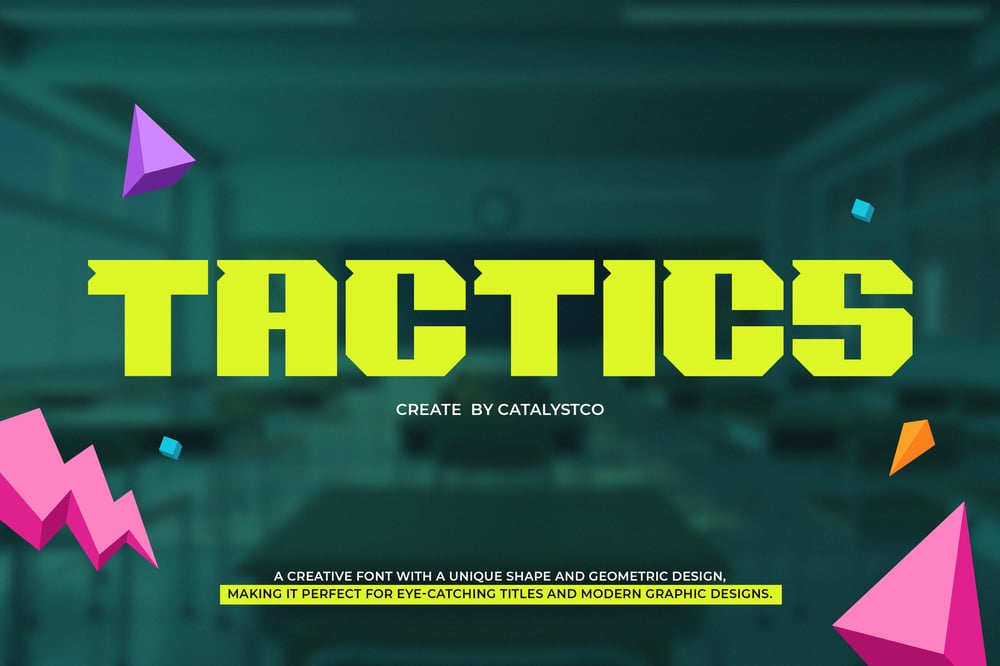
Tactics
Tactics font
Tactics Font Family was designed by published by Catalystco Std. Tactics contains 2 styles and family package options. Tactics is a bold, geometric display font with a futuristic and edgy design. Its sharp angles and blocky structure make it perfect for eye-catching titles, gaming logos, tech branding, and digital artwork. The unique letter shapes add a modern, tactical feel, making it an ideal choice for esports, sci-fi themes, and streetwear branding. Whether used for posters, social media graphics, or merchandise, Tactics delivers a strong visual impact that commands attention and enhances any contemporary design.Main Features* Available in OpenType formats* Available in Regular and Slant Style* Uppercase & Lowercase characters* Numeral & Punctuations